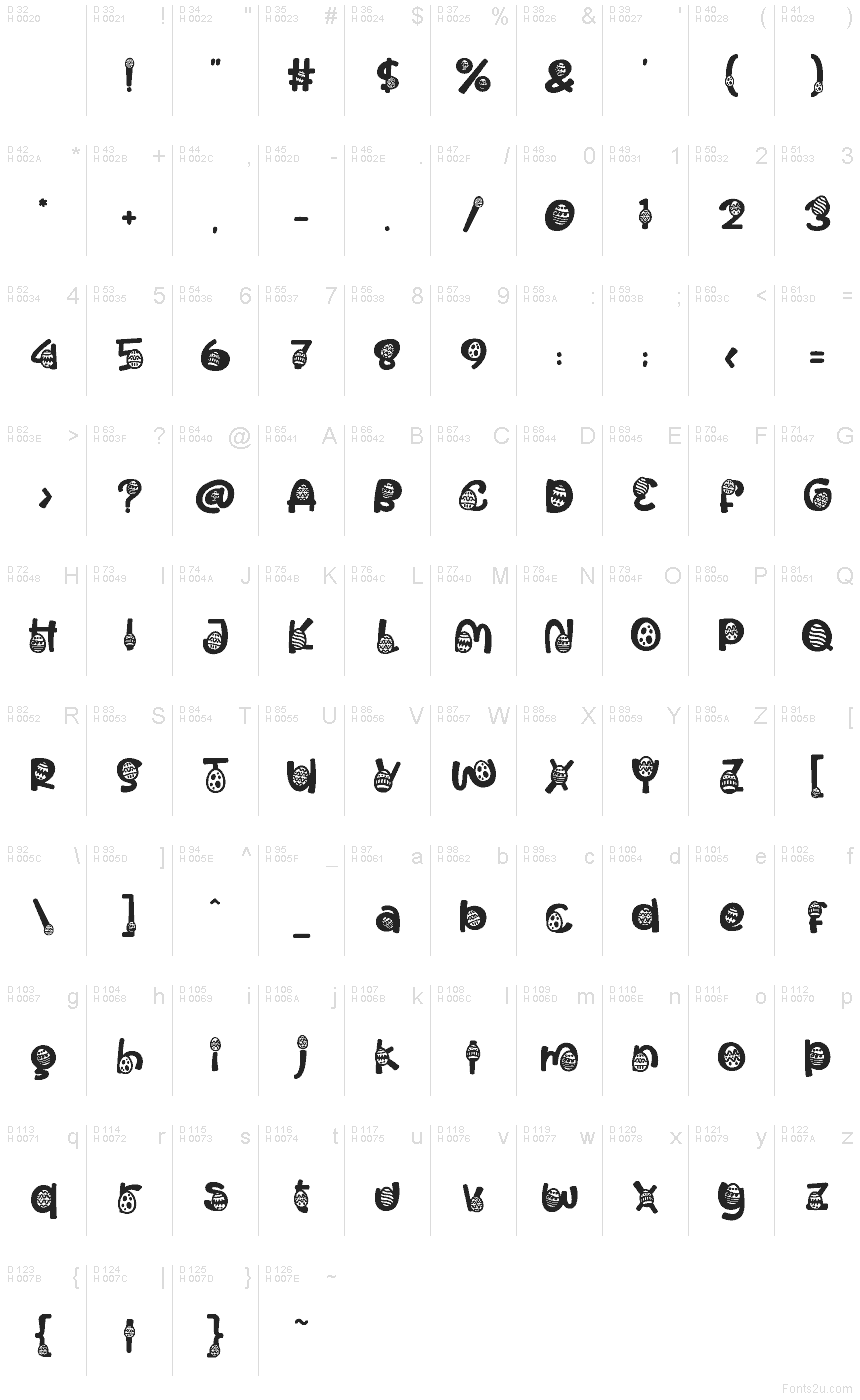
Pastel Palooza Eggs
Pastel Palooza Eggs font by PutraCetol Studio is a decorative seasonal Easter font with letters situated in decorated eggshells. Its festive display letters all have unique touches inspired by the time of the year. The whimsical character of this free multipurpose font makes it perfect for fun greetings and presentations.
Apply Pastel Palooza Eggs in kids’ Easter books, casual web and app fonts, Easter eggs decorations, greeting cards, comic book texts, logos and trademarks, magazines decoration, event invitations stationery packaging projects.